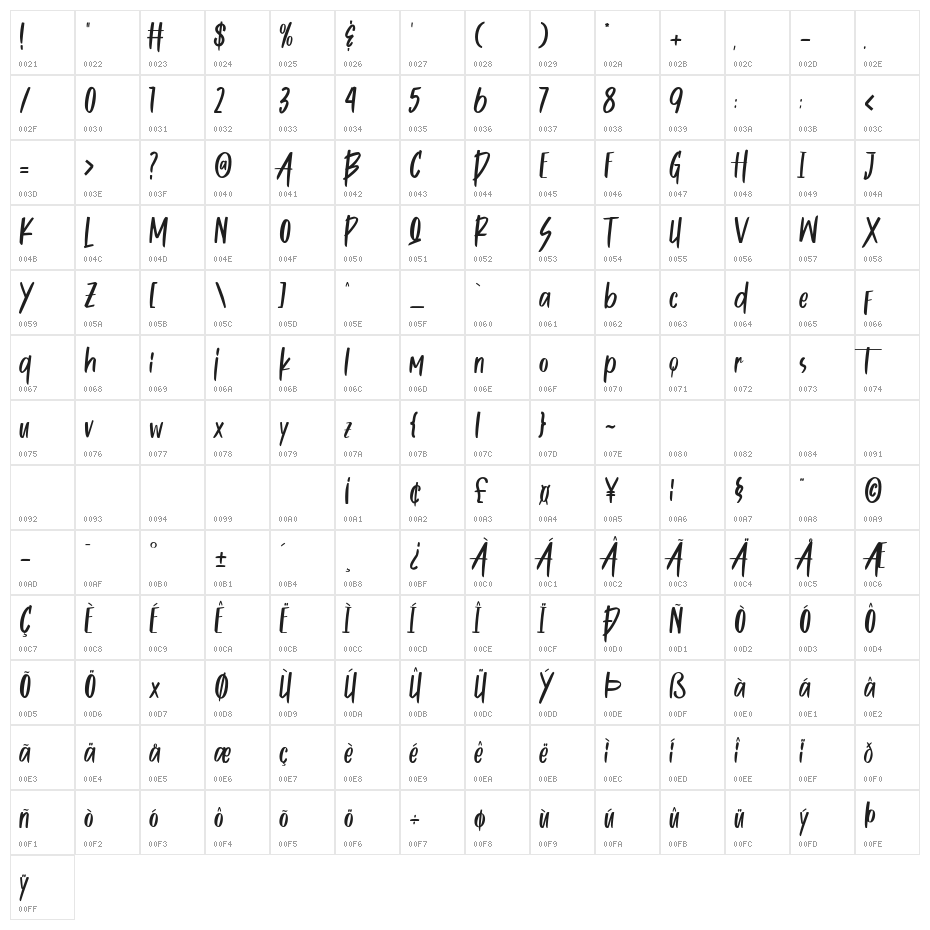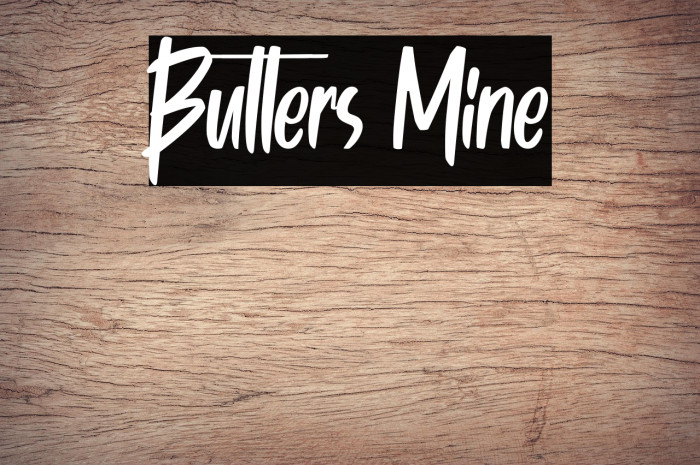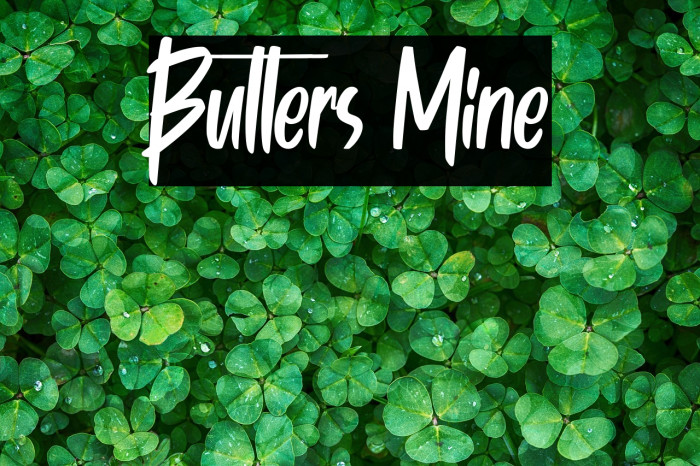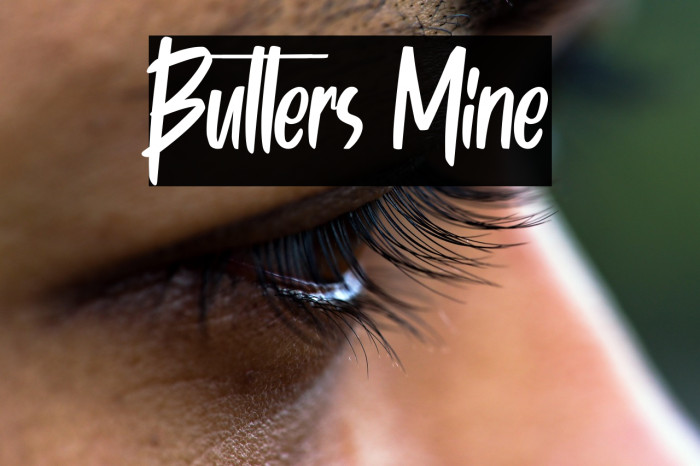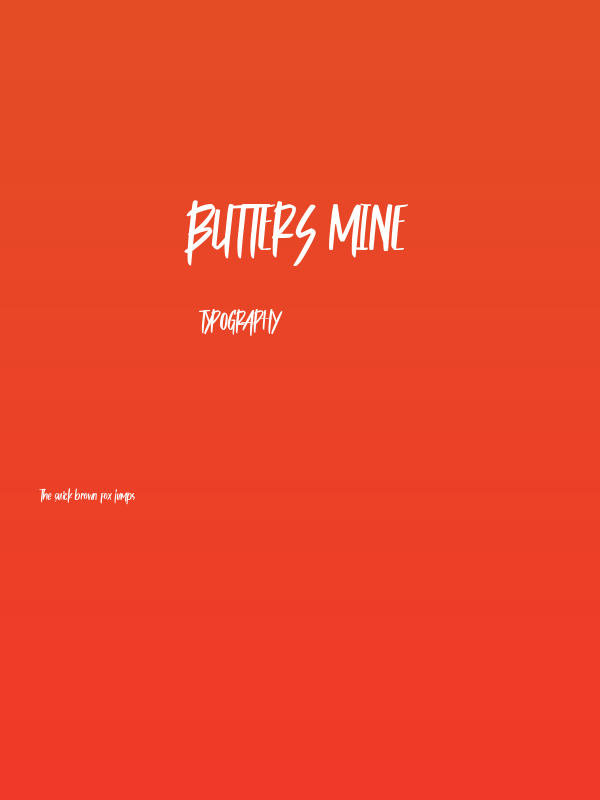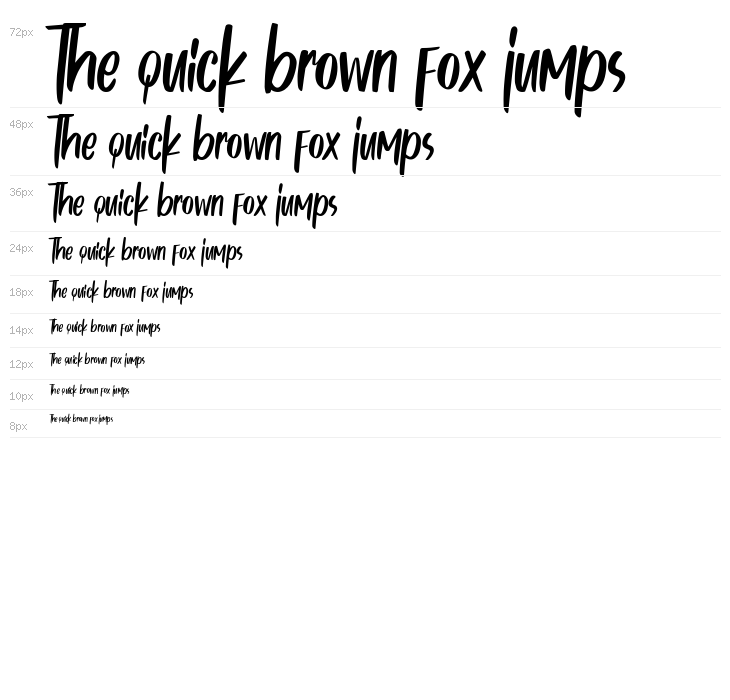
Butters Mine Font
Butters Mine Description
This font features a bold and expressive handwritten style, characterized by its dynamic and energetic strokes. The uppercase letters are tall and slightly condensed, giving a sense of urgency and movement. The lowercase letters maintain a consistent flow, with playful loops and curves that add a touch of whimsy. The numerals are bold and legible, matching the overall style of the alphabet. Special characters are creatively integrated, maintaining the font's lively and informal aesthetic. This font is perfect for projects that require a personal and approachable touch, such as invitations, posters, and branding materials.